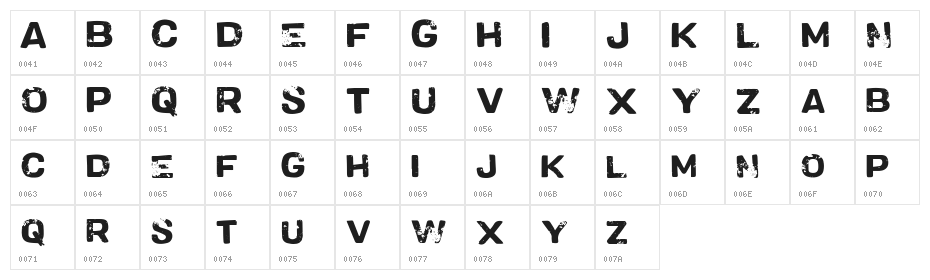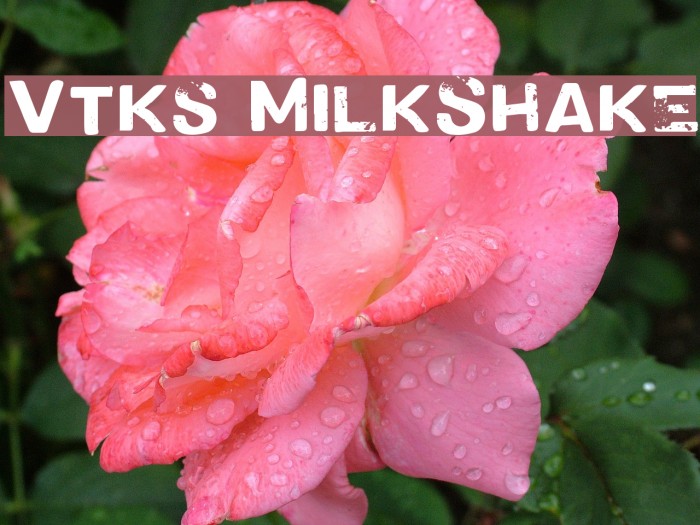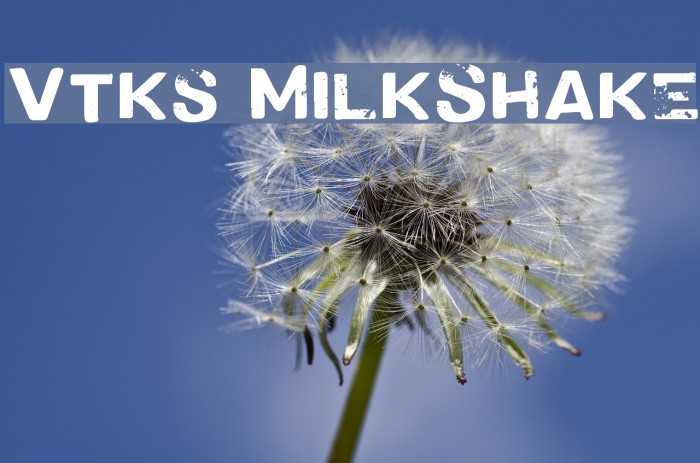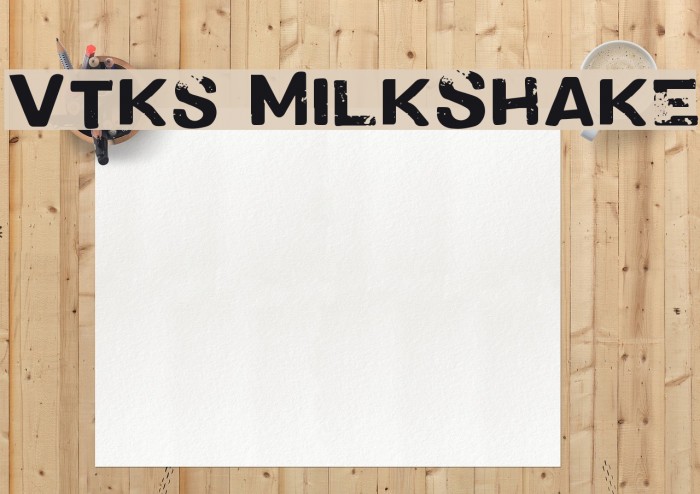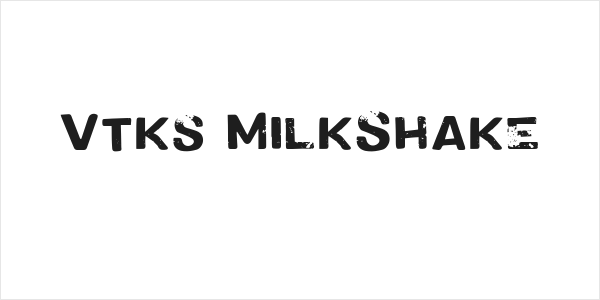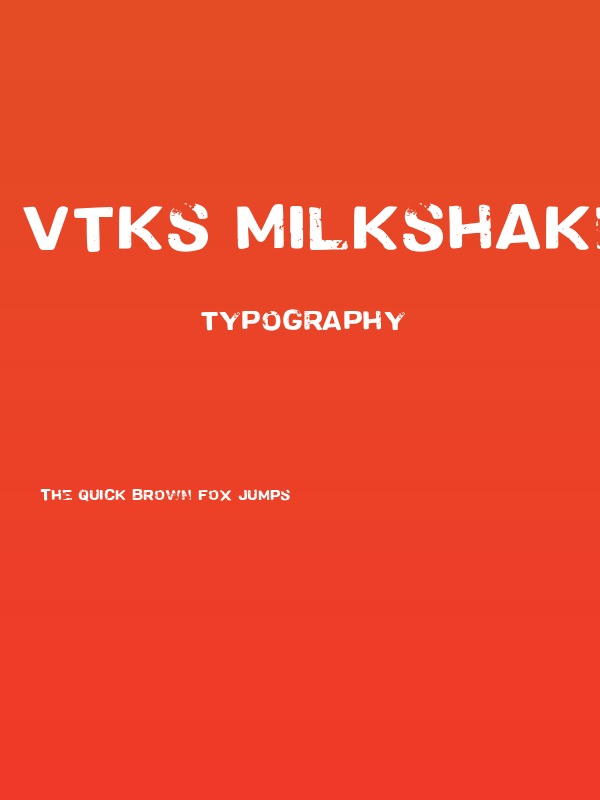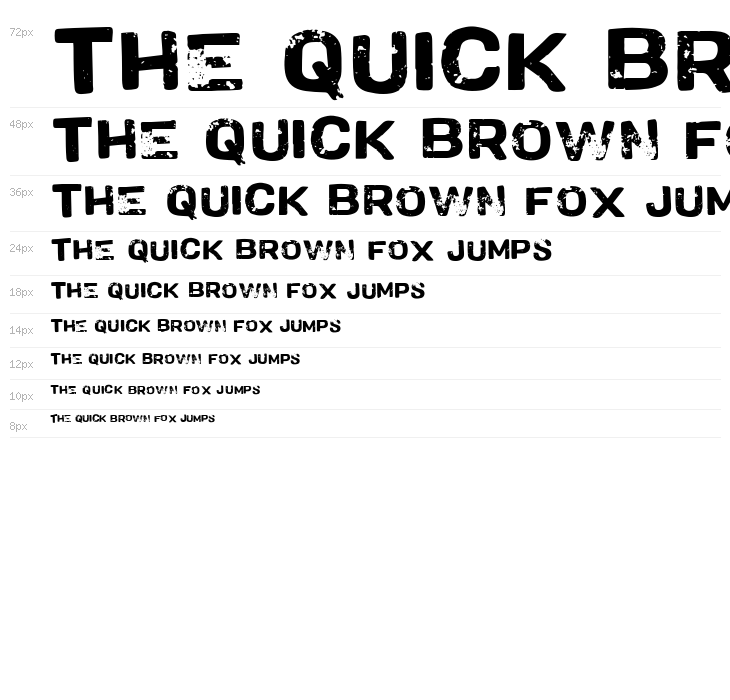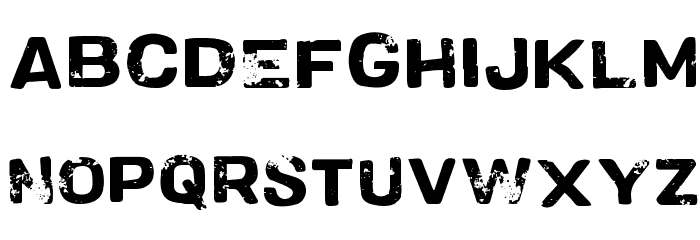
Vtks MilkShake Font
Vtks MilkShake Description
This font features a bold and distressed style, with a grunge texture that gives it a rugged and worn appearance. The uppercase letters are prominent and sturdy, while the distressed effect adds a unique, vintage feel. The characters are evenly spaced, maintaining readability despite the textured design. This font is ideal for projects that require a bold statement with a touch of edginess, such as posters, album covers, or branding for alternative or retro-themed products.
Overall StyleVintage
Proposed ProjectsIdeal for posters, album covers, branding for alternative or retro-themed products.